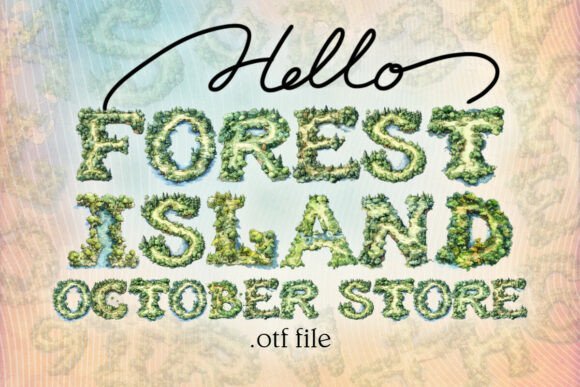
Unleash the Charm of the Island
Have you ever stepped into a serene forest, surrounded by the soothing sounds of nature and the warmth of the sun filtering through the leaves? It’s a moment that sparks creativity and inspires us to bring that tranquility into our work. For designers looking to infuse their projects with a touch of the natural world, the Forestisland Font is the perfect tool. This unique font boasts a vibrant green palette, reminiscent of a secluded island forest, and is perfectly crafted for Earth Day themes.
With its refreshing essence and charming watercolor technique, the Forestisland Font adds an artistic touch to any project. It’s a valuable addition to any designer’s toolkit, allowing them to make a statement and bring a sense of wonder to their work. Whether you’re creating a logo, a poster, or a website, the Forestisland Font is sure to captivate and inspire.
Forestisland Font Key Features
- Font Family: Forestisland Font offers a range of font styles, including Regular, Italic, Bold, and Bold Italic.
- Unique Characteristics: The font features a unique blend of natural and mystical elements, with intricate details and subtle textures, adding an air of sophistication and elegance to any design.
- Character Count: The font family includes over 250 characters, including Latin, Cyrillic, and Greek alphabets, making it a versatile choice for multilingual designs.
Designer Review: Forestisland Font
Overall, I think Forestisland Font is a lovely, whimsical typeface that can add a touch of magic to your design projects. ✨ It has a unique, hand-drawn feel that’s reminiscent of traditional illustrations.
The font’s character set is extensive, making it suitable for a wide range of applications, from body text to headings and titles. The weights and styles are well-designed, allowing for a good balance between legibility and visual interest. ✨ The font’s subtle irregularities and imperfections give it a charming, human touch that’s hard to find in more polished, digital fonts.
- Lovely, whimsical design that adds a touch of magic to your projects
- Extensive character set, making it suitable for various applications
- Well-designed weights and styles for a good balance between legibility and visual interest
- Not ideal for formal, corporate designs where a more polished look is required
- May not be suitable for very small text sizes due to its handwritten nature
- Some characters may not be as precise or consistent as users might expect from a digital font
- ⚠️ Some users may find the font’s irregularities distracting or hard to read in certain contexts
Overall, I think Forestisland Font is a great choice for designers looking to add a touch of personality and whimsy to their projects. While it may not be suitable for every application, it’s a versatile and charming typeface that’s sure to delight users and add a unique touch to their designs.
Tips for Getting the Most Out of Forestisland Font
Experiment with different font sizes and styles to create a unique look.
Use Forestisland font in conjunction with other fonts for a cohesive design.
Consider using Forestisland font for headings and titles to create visual hierarchy.
Forestisland font is ideal for creative projects, such as branding, marketing materials, and graphic design.
Use it to add a touch of elegance and sophistication to your designs.
Forestisland font is also suitable for headings and titles in academic and professional documents.
Alternatives to Forestisland Font
Great Vibes Font is a modern, elegant script font that is perfect for creating a sophisticated and stylish design. It is ideal for use in branding, logos, and advertisements where a touch of elegance is required.
Compared to Forestisland Font, Great Vibes Font is more refined and polished, making it suitable for high-end designs. While Forestisland Font has a more rustic feel, Great Vibes Font is more versatile and can be used in a wide range of design contexts.